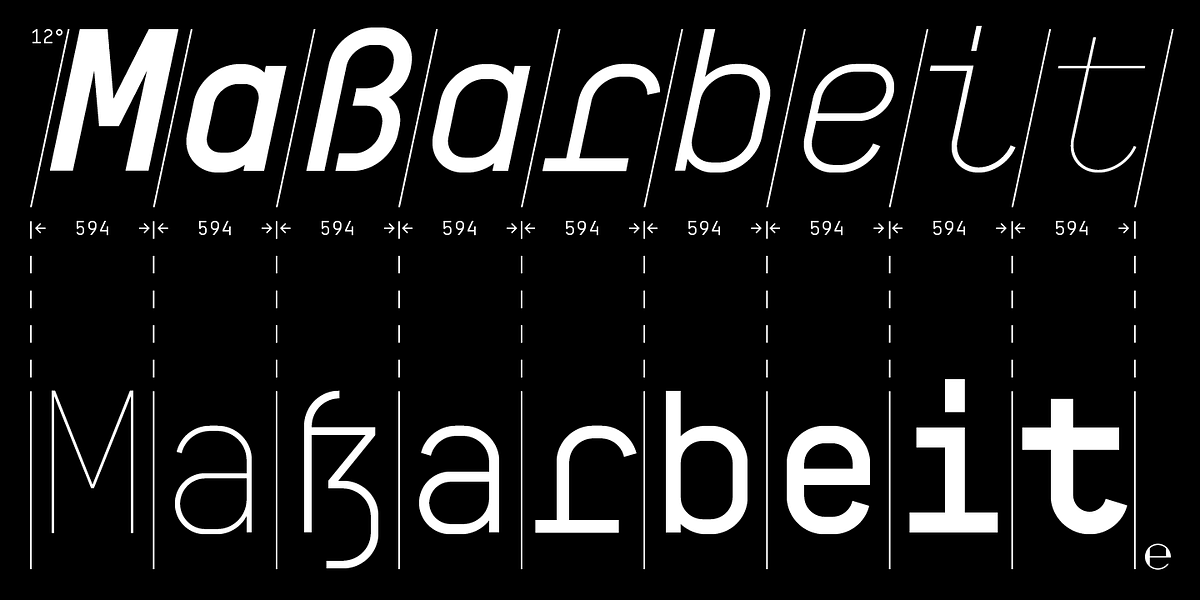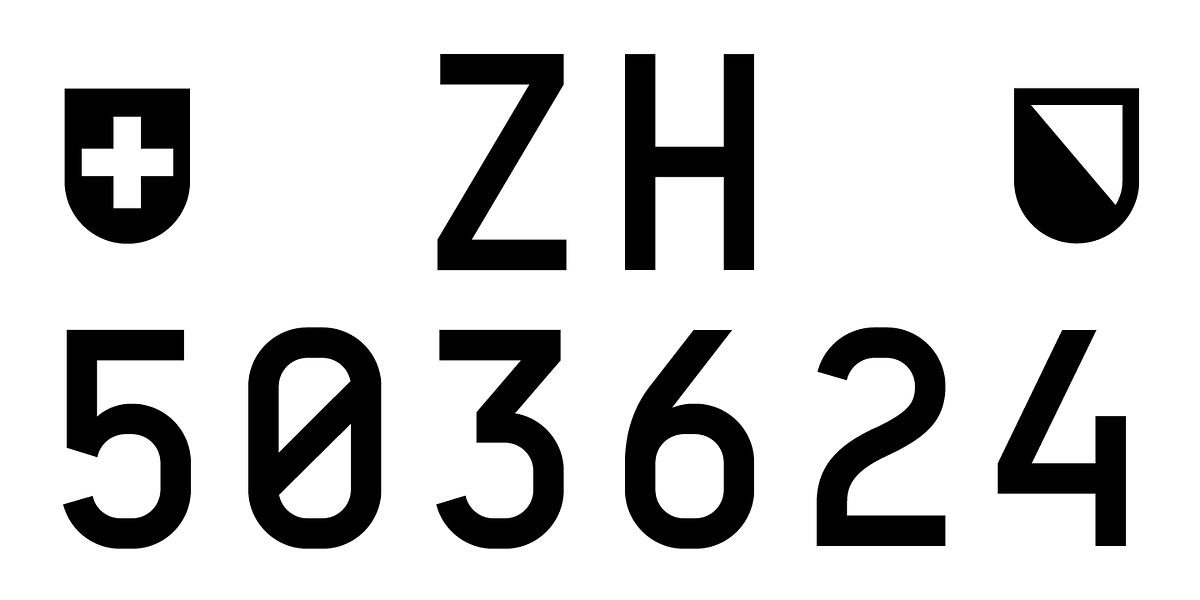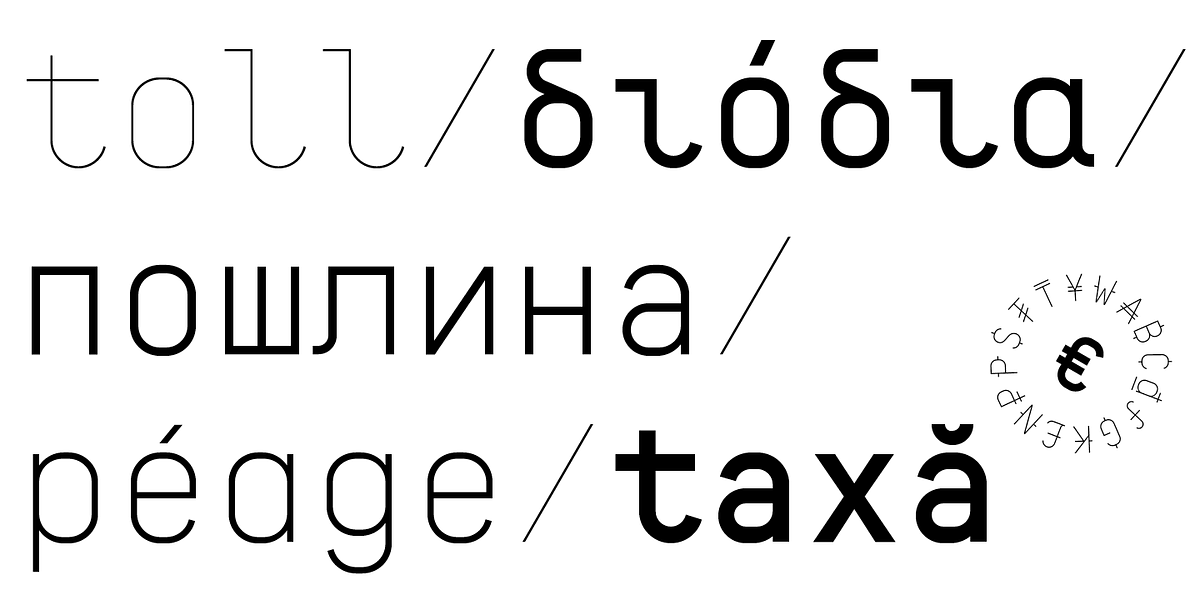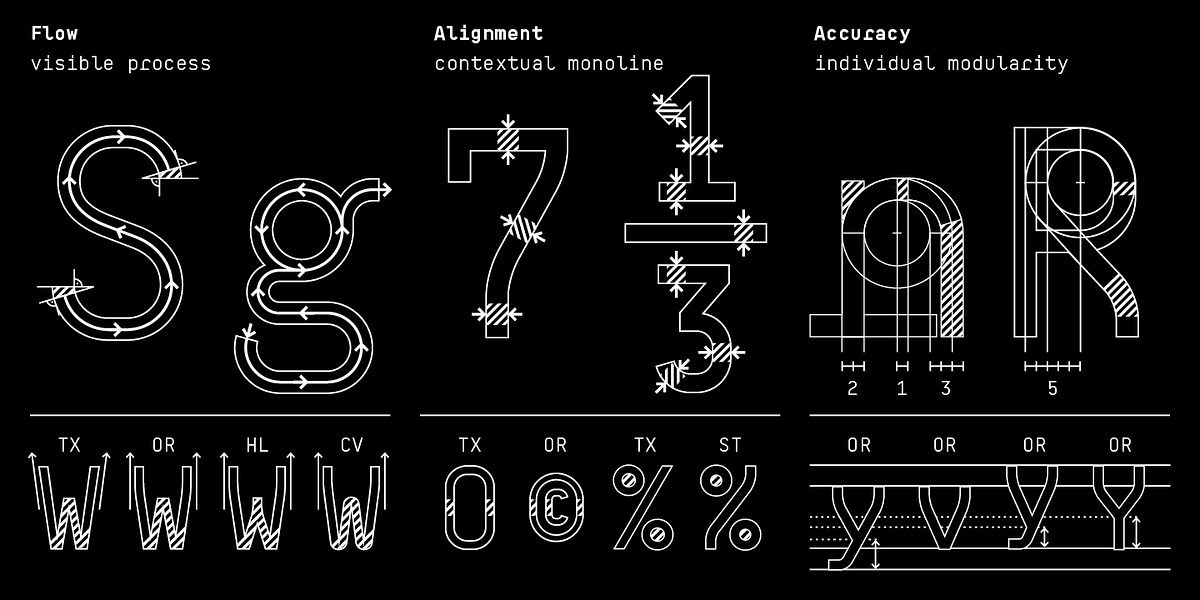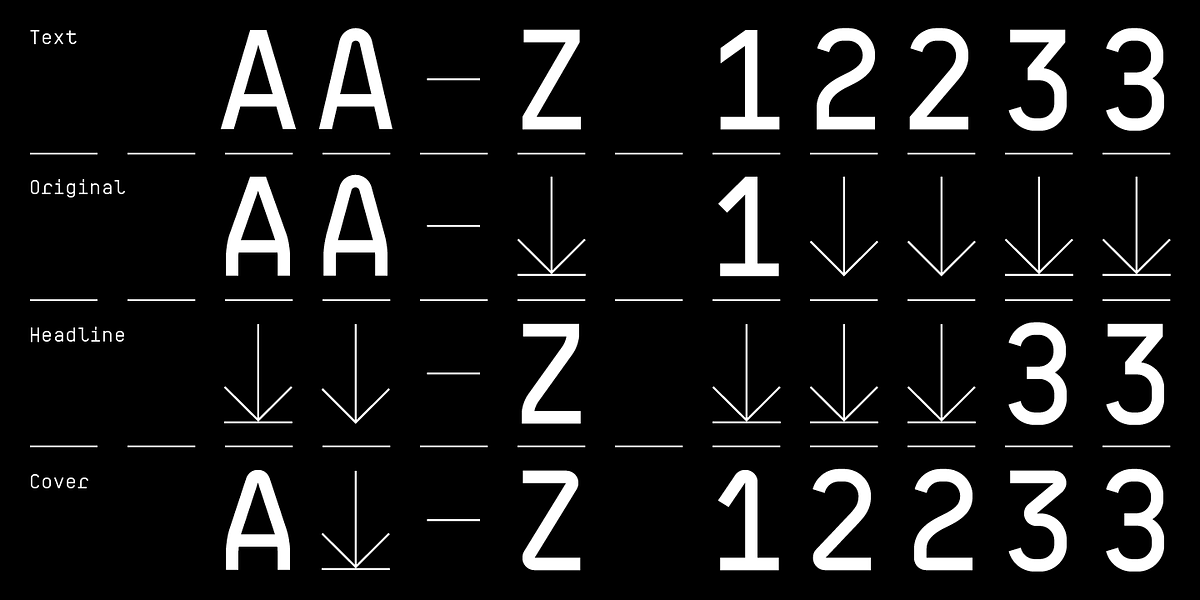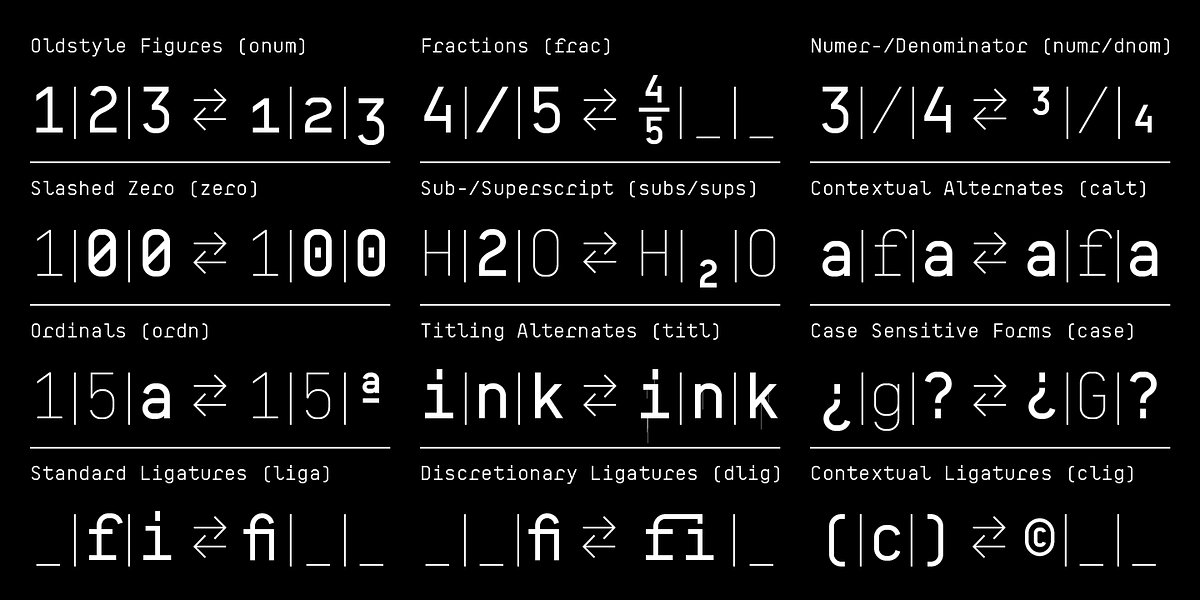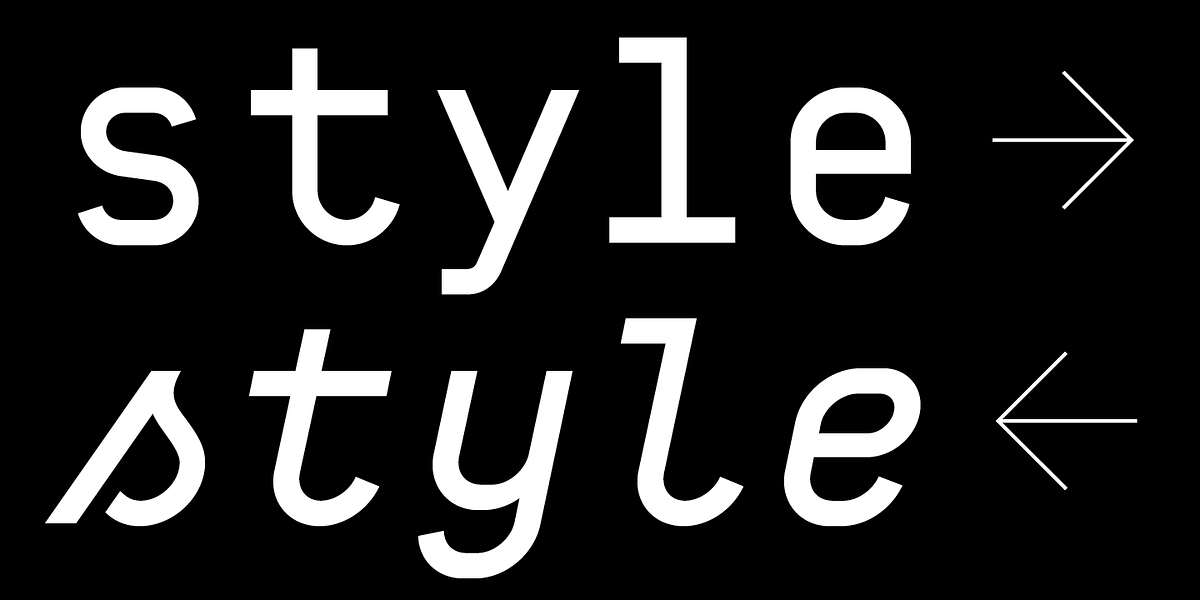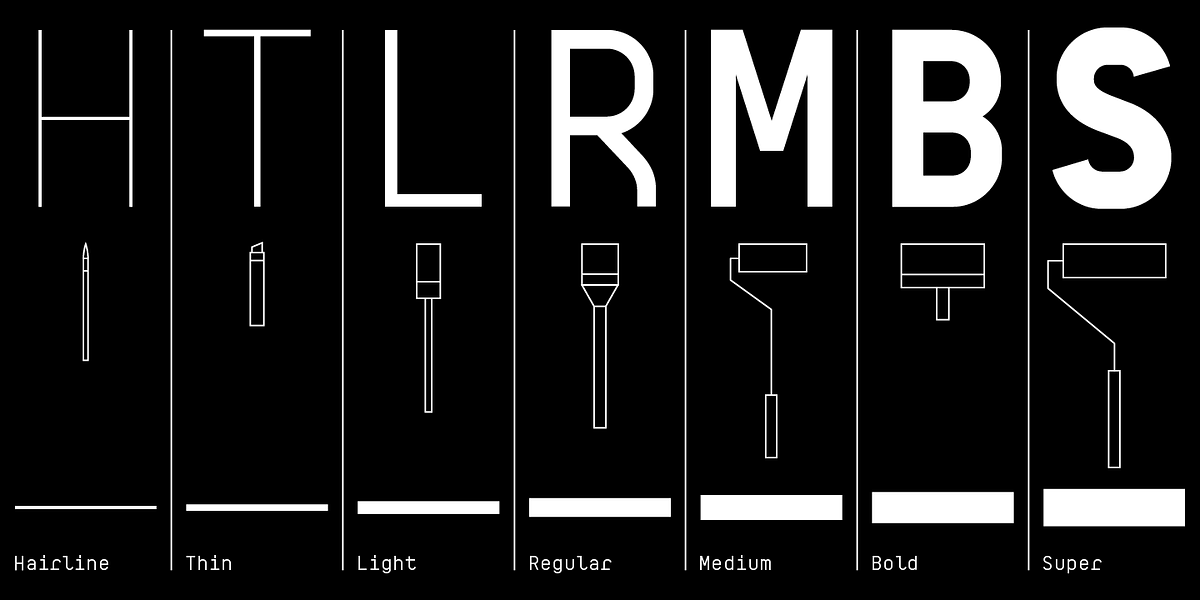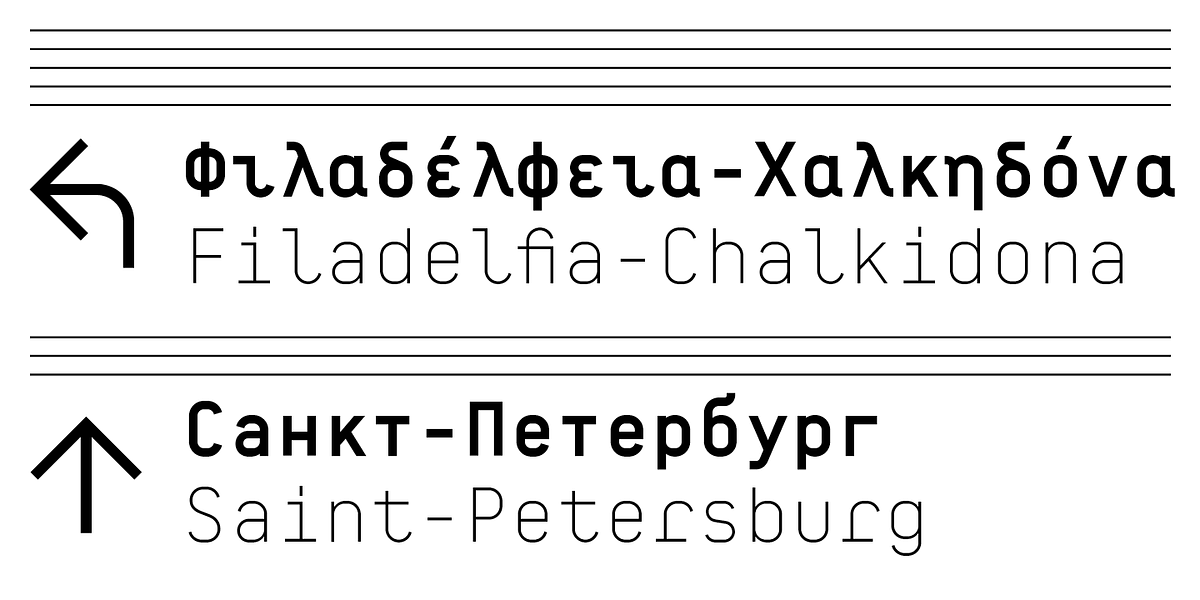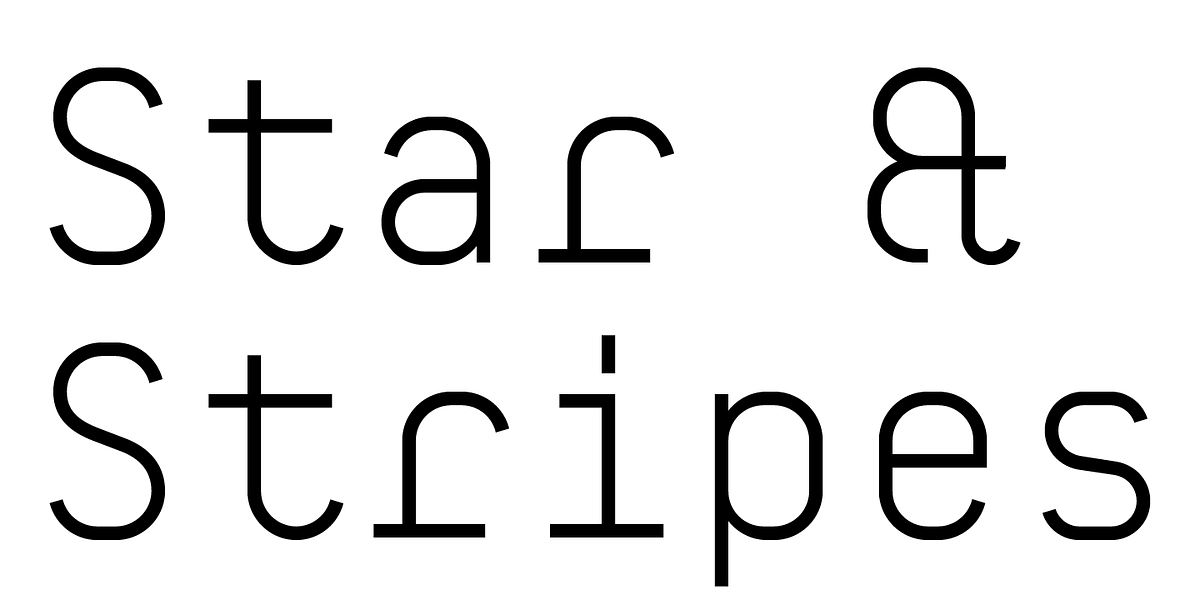
BB Manual Mono™ (Pro)
BB Manual Mono™ Pro is a geometric display sans-serif font characterized by its monolinear style and emphasis on process visualization. The font features visible process flow, contextual monoline alignment, and individual modularity.